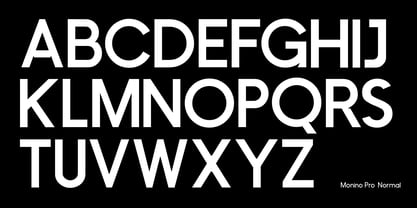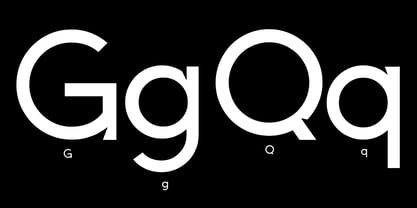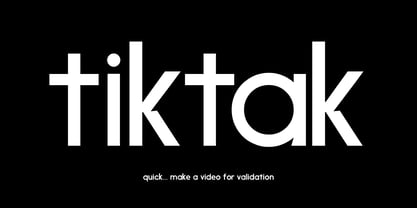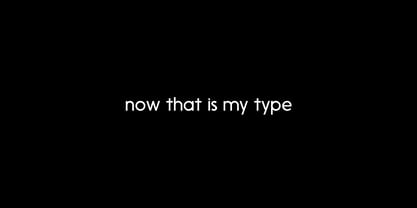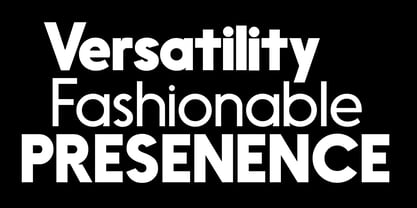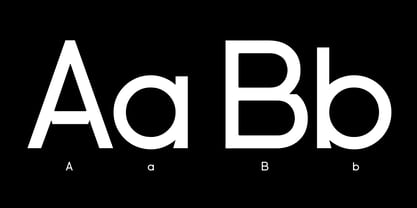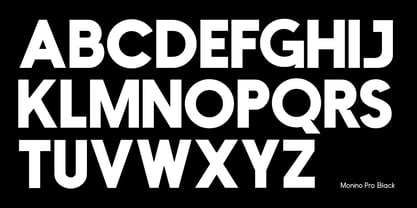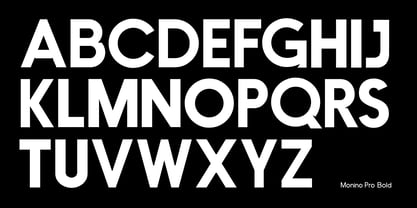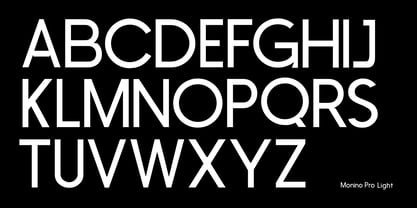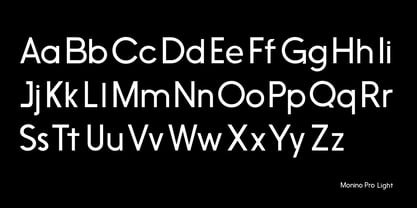
Monino Pro
The Monino Pro Font Family was designed by Alex Haigh and published by HyperFluro. Monino Pro contains 4 styles and family package options. More about this family
Monino Pro is a refined, modern sans serif type family designed for clarity, impact, and versatility in contemporary design. Engineered with precision and a clean geometric foundation, it conveys a confident, premium tone that transitions seamlessly from digital interfaces to high-end branding and editorial applications. The family features four meticulously balanced weights: Pro Light, Pro Normal, Pro Bold, and Pro Black, providing a comprehensive range from elegant minimalism to commanding presence. Each weight is crafted to ensure visual harmony while offering designers the flexibility to establish strong typographic hierarchy and cohesive layouts. With its crisp letterforms, subtle character, and professional finish, Monino Pro is tailored for brands that seek a modern voice in marketing, advertising, music visuals, or innovative creative projects. Experience the precision of Monino Pro in every weight.